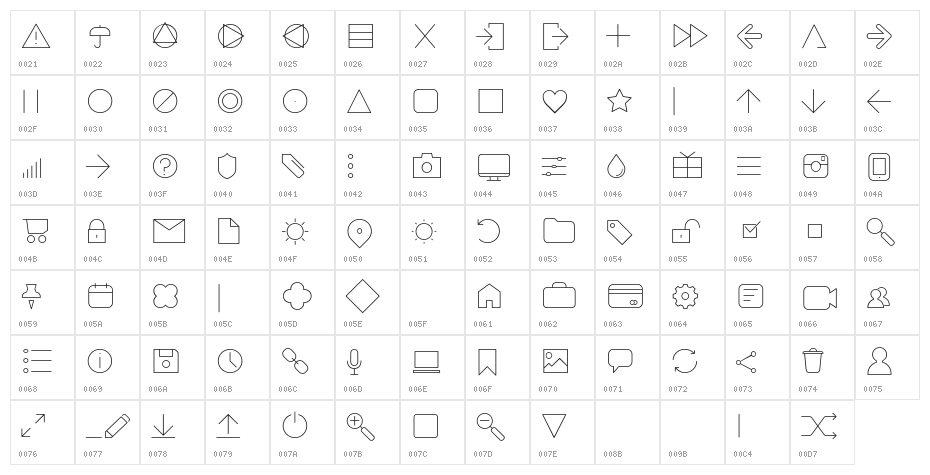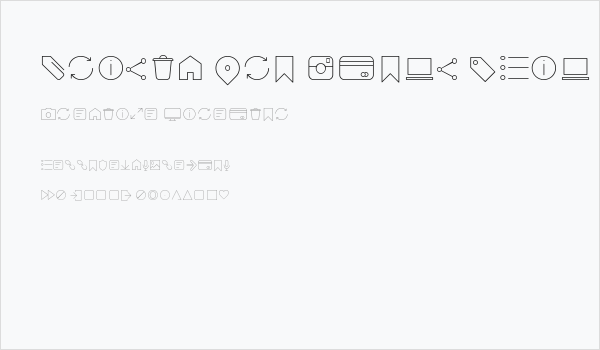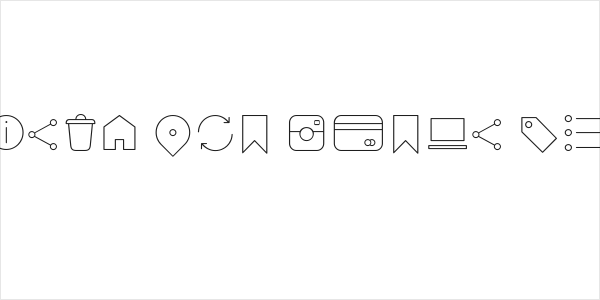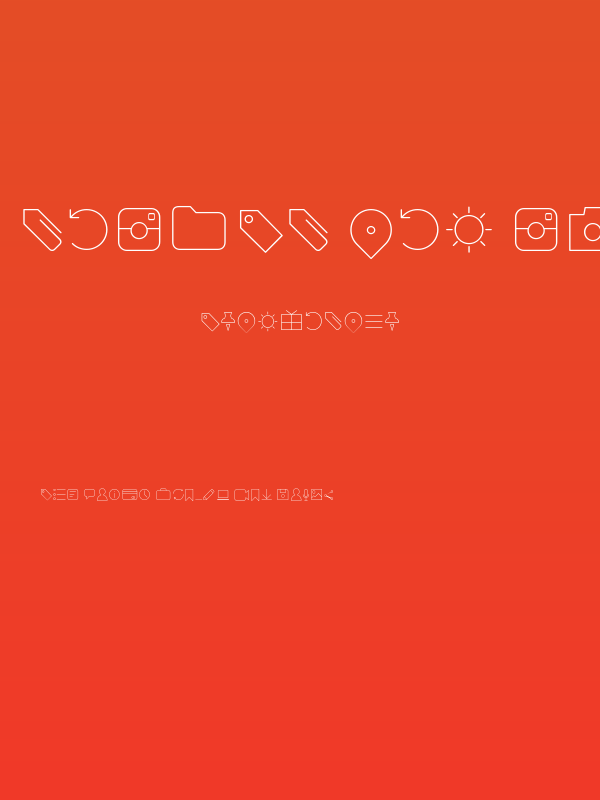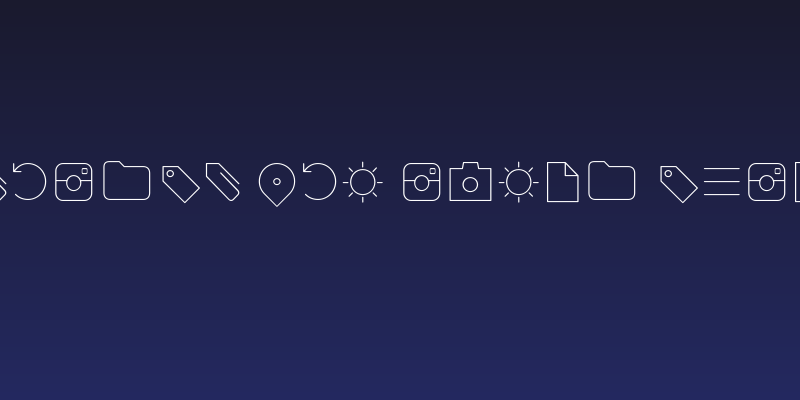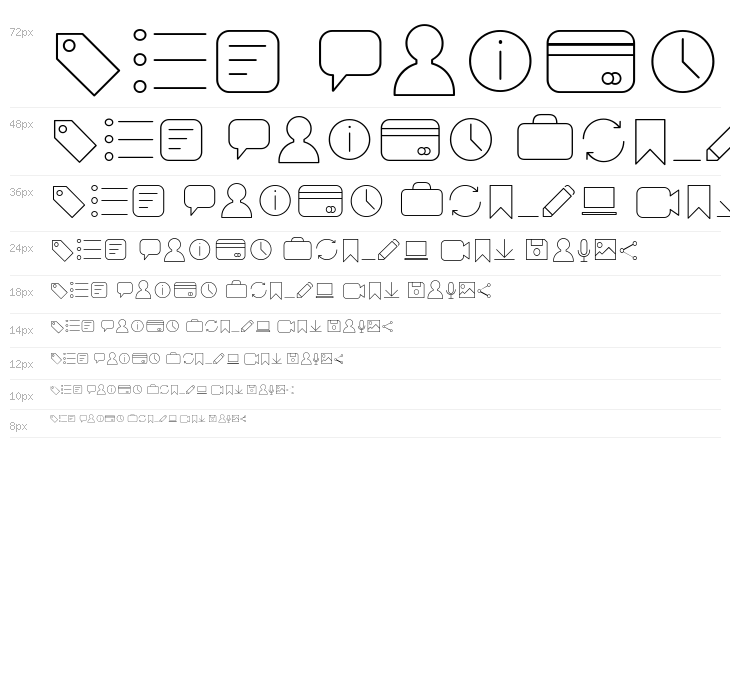
Arista Pro Icons Thin Font
Arista Pro Icons Thin Description
A thin, minimalist icon set with consistent line weights and rounded corners, featuring a wide range of common UI symbols such as arrows, shapes, interface elements, and actions. The icons are outlined, geometric, and maintain even spacing and proportions for a clean, modern appearance.
| Overall Style | Modern, Minimalist |
| Use Case | Icons, UI elements, navigation, toolbars |
| Proposed Projects | Mobile apps, web interfaces, dashboards, presentations, infographics, modern branding. |